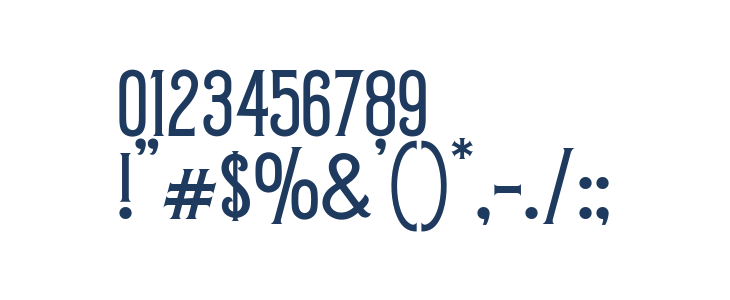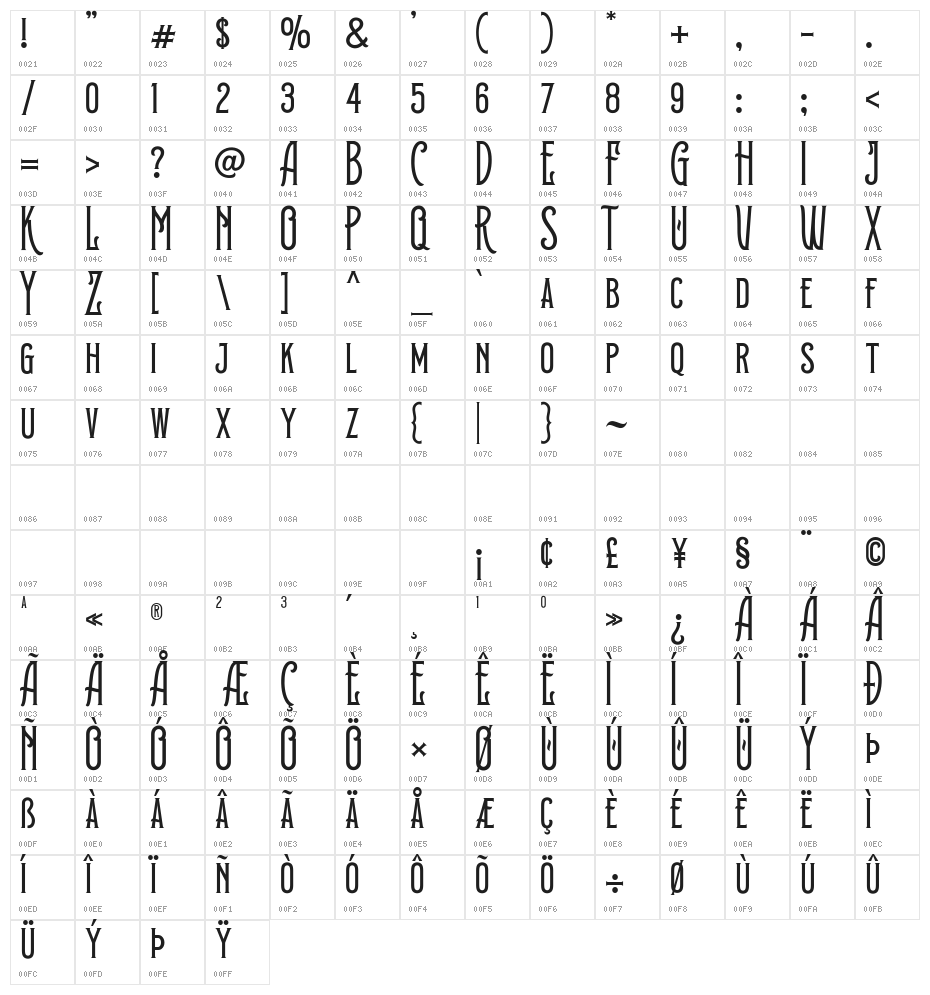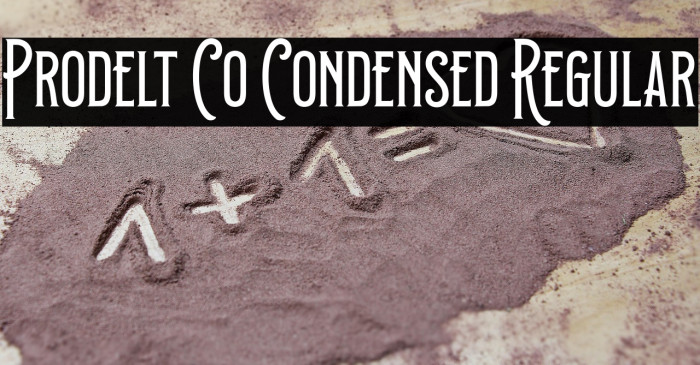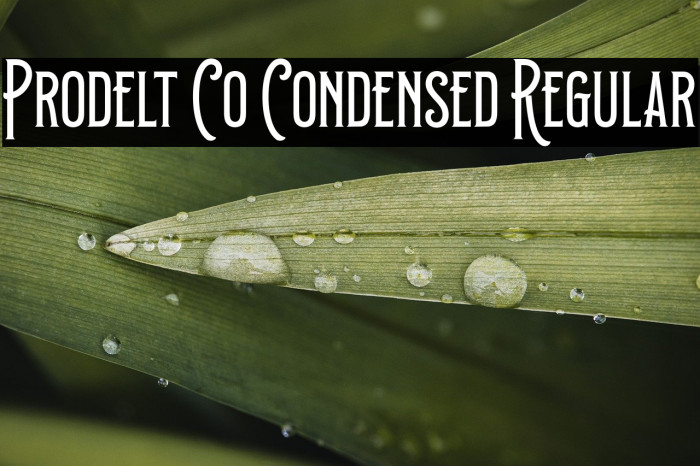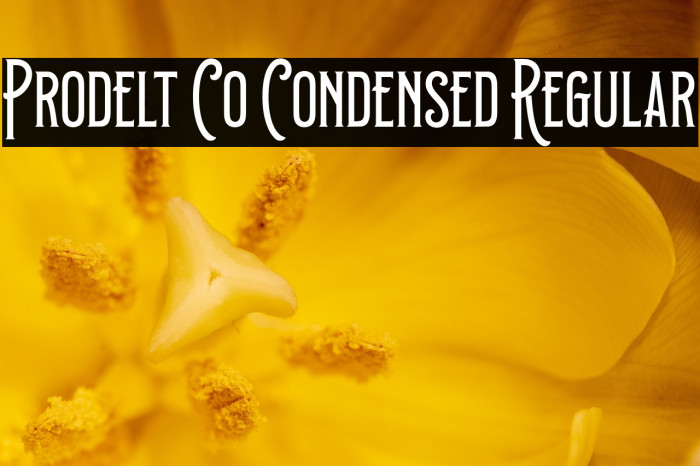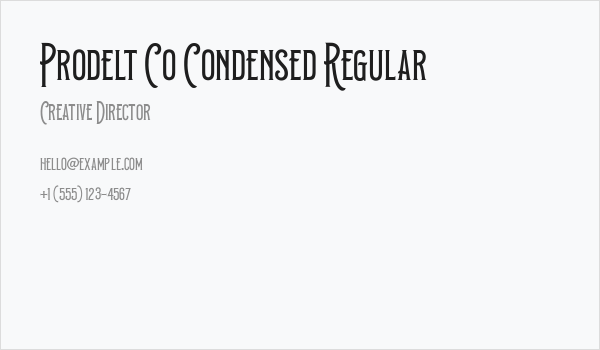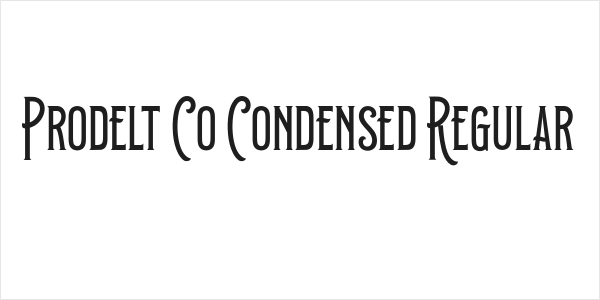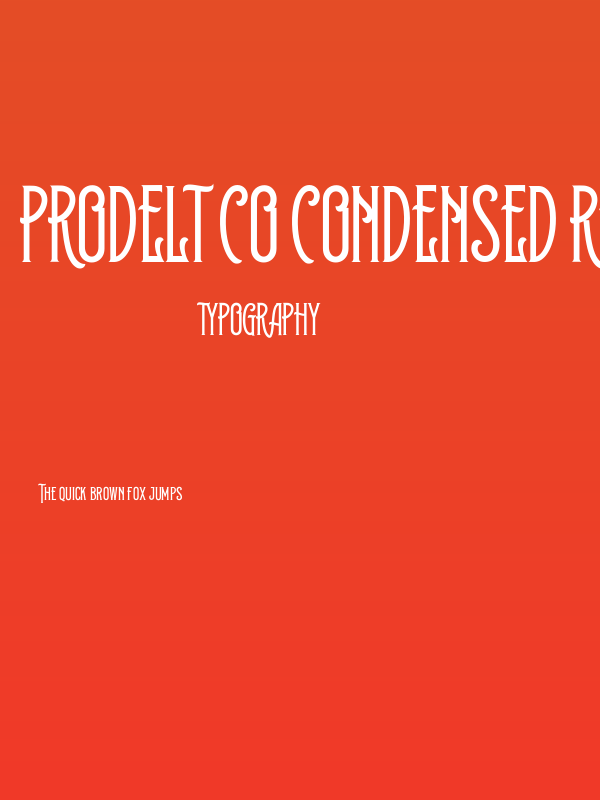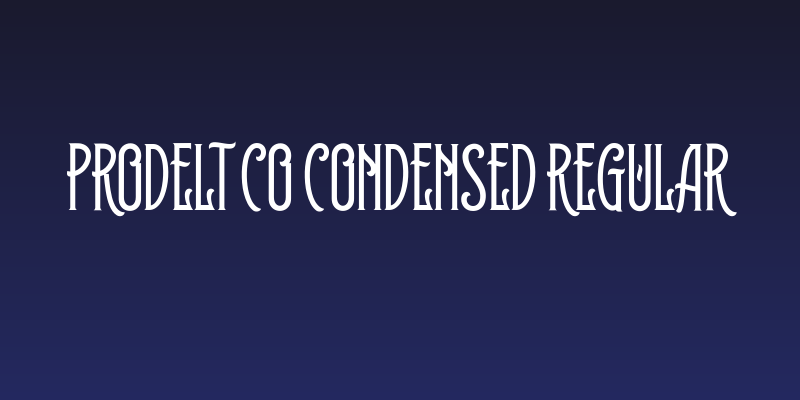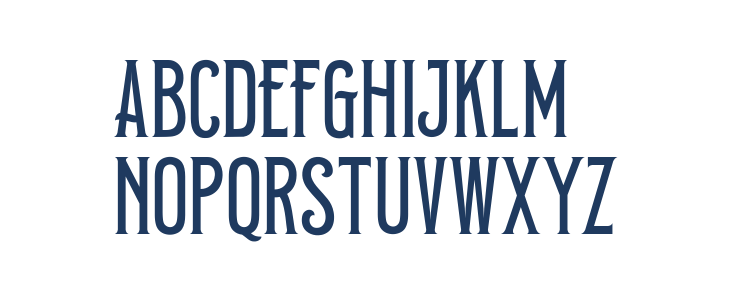
Prodelt Co Condensed Regular Font
Prodelt Co Condensed Regular Description
This font features a condensed and elongated structure, giving it a distinct and modern appearance. The characters are tall and narrow, with a consistent stroke width that maintains a clean and uniform look. The uppercase and lowercase letters are designed with a slight curvature, adding a touch of elegance to the overall style. The numbers are clear and easy to read, matching the font's sleek aesthetic. Special characters are well-integrated, maintaining the font's cohesive design. This font is suitable for projects that require a contemporary and sophisticated touch.